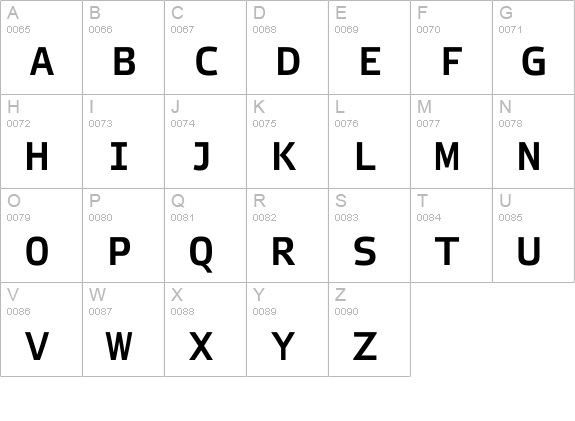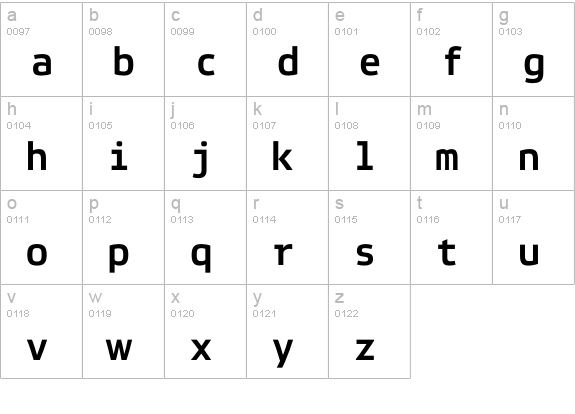
Etelka Monospace Pro Bold Font Details
Etelka Monospace Pro Bold is a strong, high-contrast variant in the Etelka typeface family \xE2\x80\x94 well suited to headlines, attention-grabbing titles, and strong calls-to-action.
Etelka Monospace Pro Bold is a modern and striking typeface that exudes confidence and professionalism. With its bold weight and monospaced design, this font stands out for its perfect balance of strength and clarity. Ideal for headlines, titles, and other attention-grabbing text, Etelka Monospace Pro Bold commands the reader's attention with its distinct and impactful presence. What makes this font even more appealing is that it is available for free download at FontsMarket.com. Whether you are a designer looking to add a touch of boldness to your project or a writer wanting to make a statement with your words, Etelka Monospace Pro Bold is the perfect choice. Download this versatile font now and elevate your designs with its bold and commanding presence.